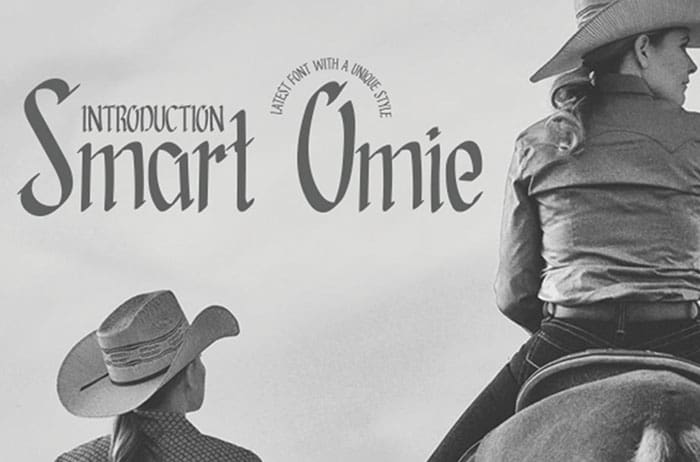
Smart Omie Serif Font
Smart Omie serif font is a simple and casual display font with a charming feel. This font will look outstanding in any context, whether it’s being used on busy backgrounds or as a standalone headline! Designed this font by Andika Studio. You can also search more free Serif Fonts.